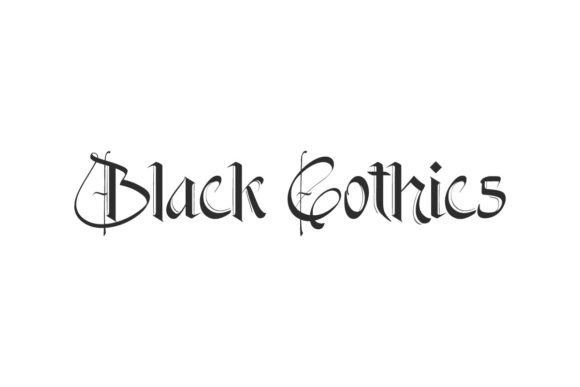
The Power of Black Gothics Font: Elevate Your Designs with a Touch of Gothic Elegance
I still remember the struggle of working on a project, pouring my heart and soul into every detail, only to be held back by a font that just didn’t cut it. The client wanted something bold, something gothic, something that would make their brand stand out. And I was stuck. That’s when I discovered Black Gothics Font, a game-changing blackletter modern display font that has since become a staple in my design toolkit.
With its sleek, gothic style, Black Gothics Font is perfect for designers, crafters, and creative hobbyists looking to elevate their designs to the next level. Whether you’re working on billboards, brand logos, brochures, business cards, or website headers, this font is sure to make a statement.
- 💯 Versatility: Black Gothics Font is incredibly versatile, making it perfect for a wide range of design projects.
- ✅ Ease of use: The font is easy to read and works well in both digital and print formats.
- ✨ Aesthetic appeal: The gothic style adds a touch of elegance and sophistication to any design.
- 🔥 Attention-grabbing: The bold, blackletter design is sure to grab attention and make your designs stand out.
A Few Quirks to Keep in Mind 🤔
- ⚠️ Legibility at small sizes: While the font is generally easy to read, it can be a bit tricky to read at very small sizes.
- ⚠️ Overuse: As with any bold font, it’s easy to overuse Black Gothics Font. Make sure to balance it with other design elements.
The Story Behind Black Gothics Font
Black Gothics Font was inspired by the works of traditional Gothic architects and the ornate, blackletter fonts of the Middle Ages. The font’s creator, a young designer with a passion for typography, wanted to create a font that would bring a touch of elegance and sophistication to modern designs. And so, Black Gothics Font was born.
| Font Name | Black Gothics Font |
| Author | NihStudio |
Q: What is Black Gothics Font?
A: Black Gothics Font is a blackletter modern display font with a gothic style, perfect for designs that require a bold, elegant look.
Q: Is Black Gothics Font easy to read?
A: Generally, yes. However, as with any bold font, it can be a bit tricky to read at very small sizes.